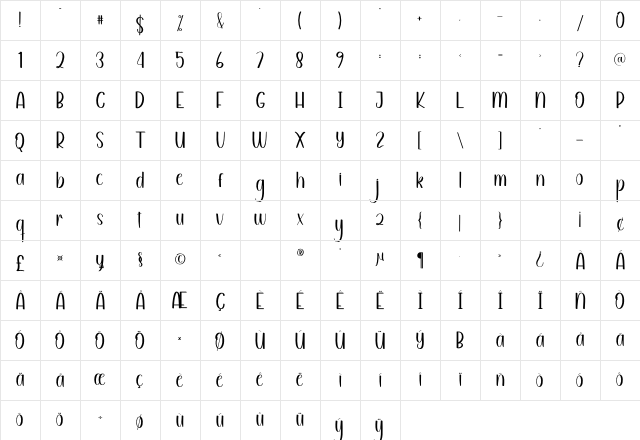
Complete Avocado Smoothie Regular glyph index. Displaying only characters natively supported by Avocado Smoothie Regular font.
Avocado Smoothie is a composed and adaptable typeface that performs quietly and consistently across a wide range of design contexts.